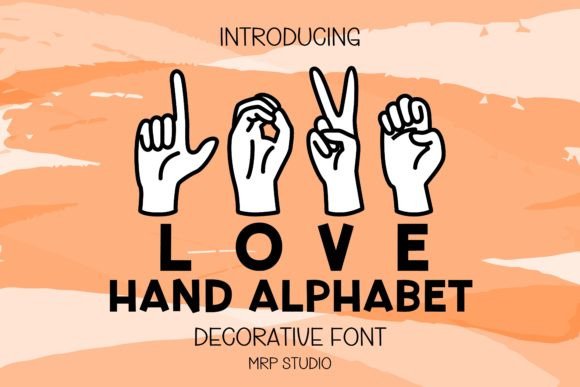
Introducing Hand Alphabet Font - the perfect choice for adding a touch of creativity and playfulness to your projects! Created by MRP STUDIO, this unique and friendly decorative font is designed specifically for hand language, making it an ideal choice for personal letters, party decorations, digital designs, and so much more.
With Hand Alphabet Font, your projects will instantly come to life with its captivating and eye-catching style. The font's playful and fun nature will inject a burst of energy into your creative ideas, ensuring that they stand out from the crowd. Whether you're designing invitations for a special occasion or creating personalized letters, Hand Alphabet Font will add that extra touch of charm and uniqueness that you've been searching for.
One of the key features of Hand Alphabet Font is its versatility. It can be used in a wide range of contexts, allowing you to explore endless possibilities for your designs. Its bold and vibrant appearance makes it perfect for party decorations, capturing the attention of your guests and setting the mood for a memorable celebration. Additionally, Hand Alphabet Font is also well-suited for digital designs, giving your online content a fresh and modern look.
But what truly sets Hand Alphabet Font apart is its ability to evoke emotions and create a connection with your audience. Its friendly and approachable style instantly resonates with people, making them feel comfortable and engaged. By incorporating this font into your projects, you'll be able to establish a genuine connection with your readers or viewers, leaving a lasting impression that they won't forget.
Imagine receiving a handwritten letter from a loved one, beautifully crafted with Hand Alphabet Font. The heartfelt message combined with the font's unique style would undoubtedly make it a cherished keepsake. Similarly, using Hand Alphabet Font for party decorations will create a joyful and lively atmosphere, making your guests feel welcomed and excited.
In conclusion, Hand Alphabet Font is not just any font - it's an invitation to unleash your creativity and make your projects truly shine. Its decorative and playful design, combined with its versatility and ability to evoke emotions, makes it the best font for personal letters, party decorations, and digital designs. So why wait? Try Hand Alphabet Font today and experience the magic it brings to your creative endeavors!